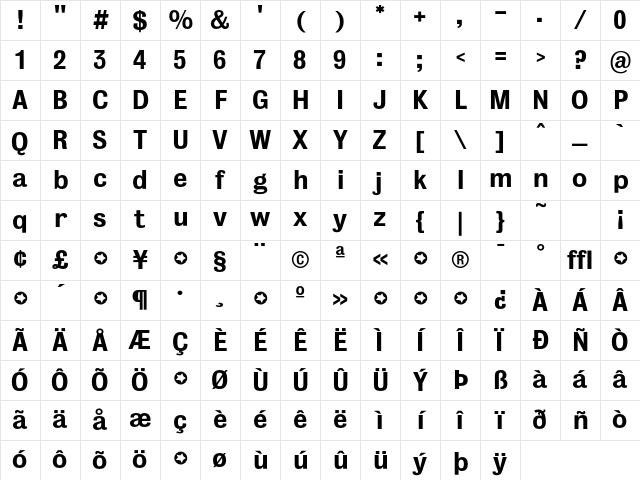
BureauGrotesque FiveFive
Style: FiveFive
Design Context for BureauGrotesque
BureauGrotesque is a composed and adaptable typeface that performs quietly and consistently across a wide range of design contexts.
Pro Tip: Use BureauGrotesque in both headline and body roles to test its range before committing to a single application.